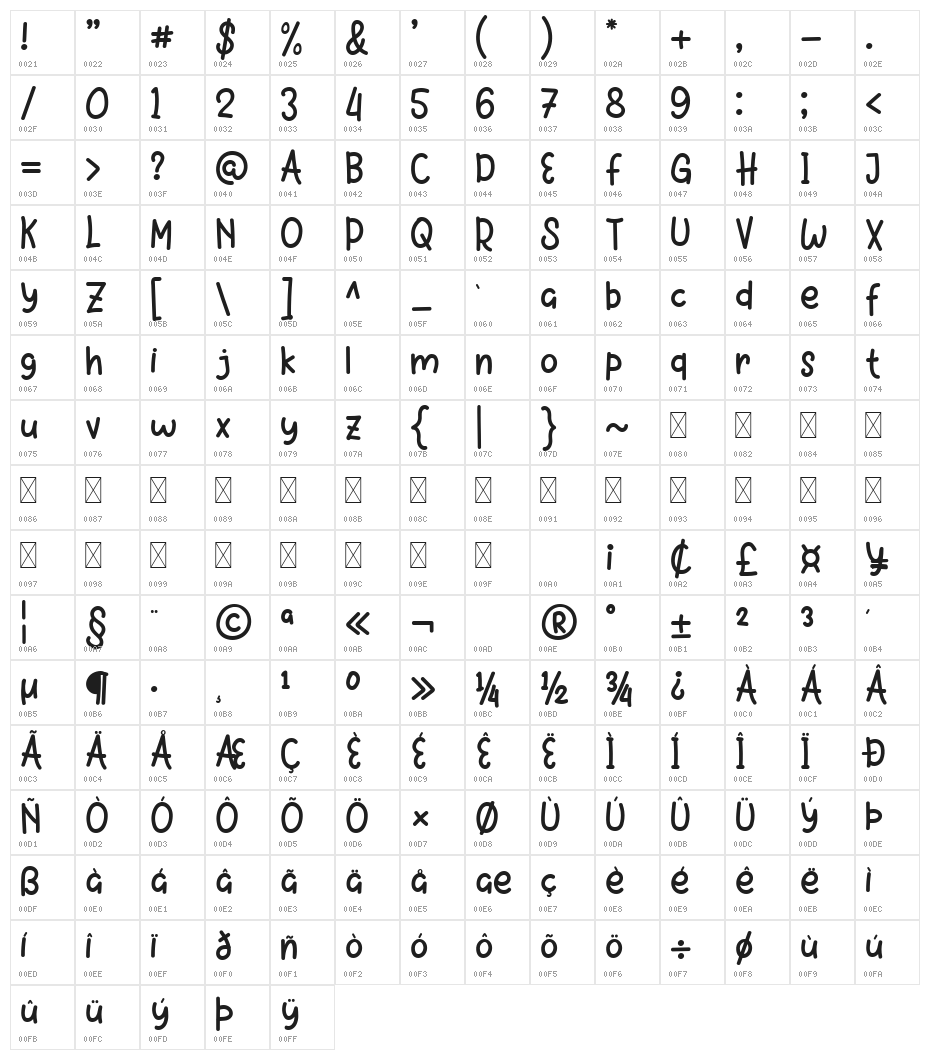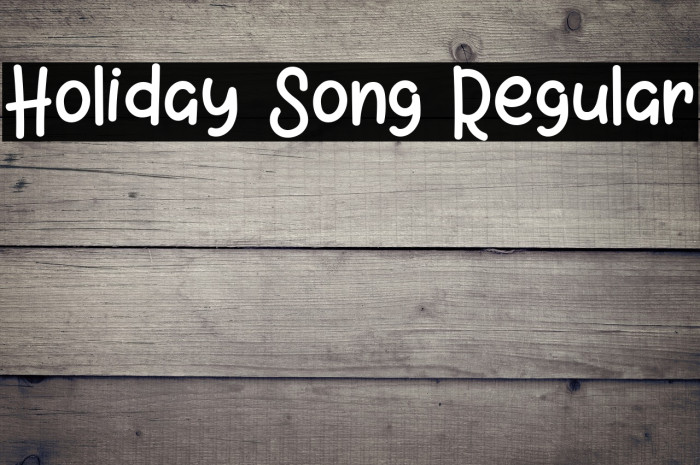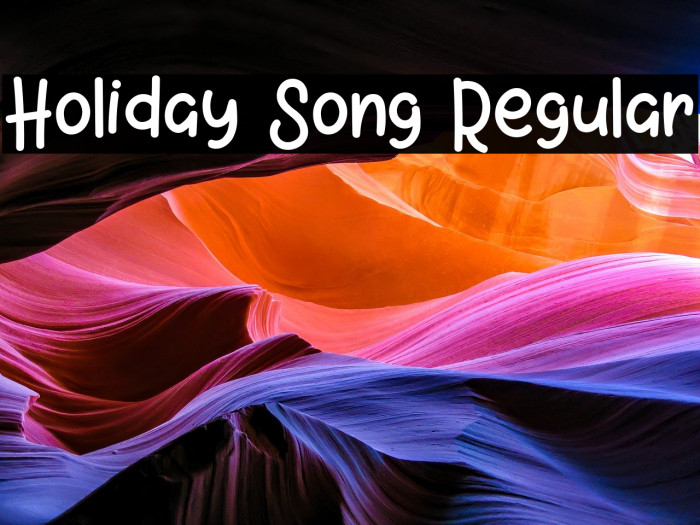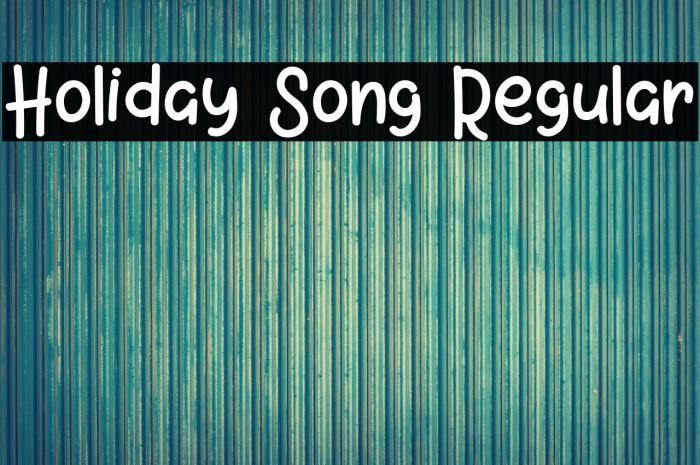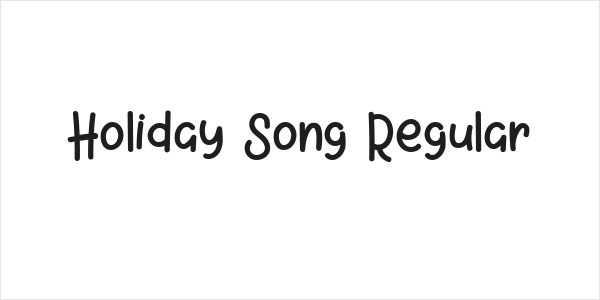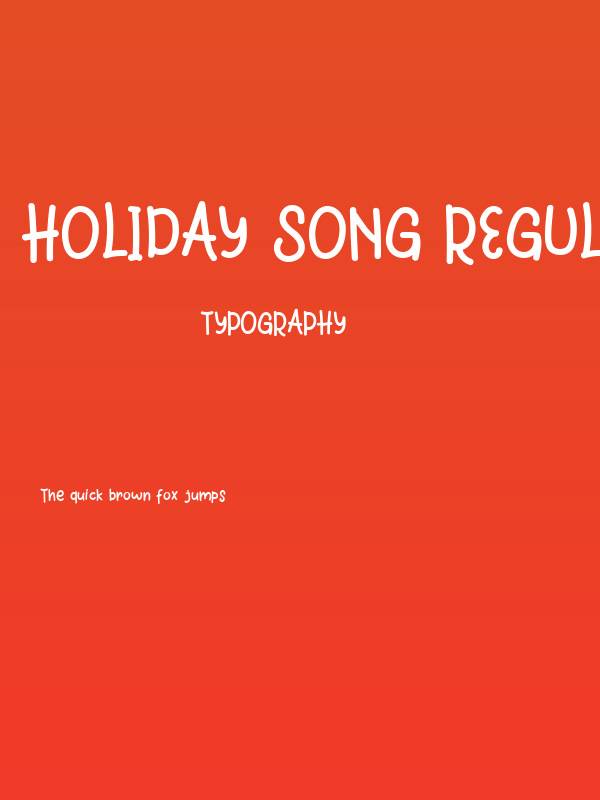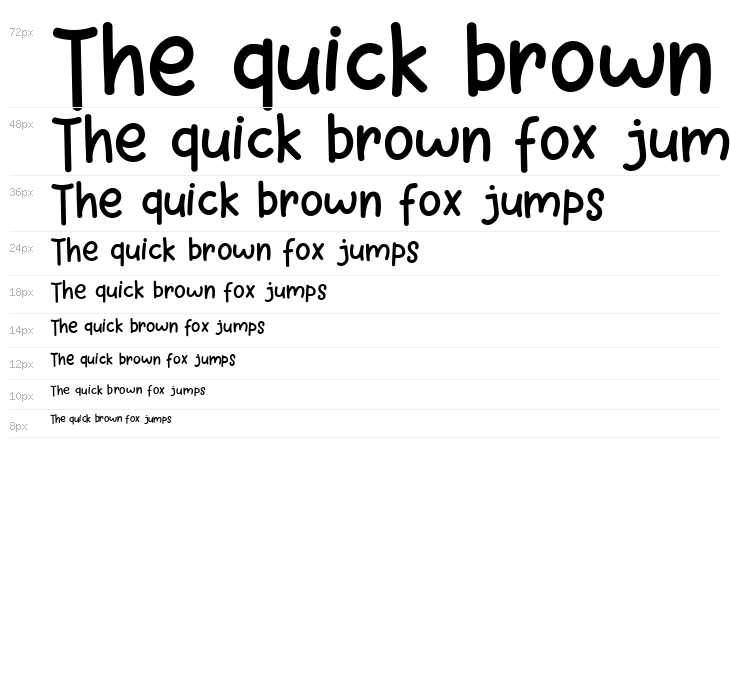
Holiday Song Regular Font
Holiday Song Regular Description
This playful and whimsical font features a handwritten style with rounded edges and a casual, friendly appearance. The characters are slightly irregular, adding to the charm and informal feel. The strokes are consistent in weight, providing a uniform look across all letters and numbers. The font includes a full set of uppercase and lowercase letters, numerals, and a variety of special characters. Its design is approachable and fun, making it suitable for projects that require a personal touch or a relaxed vibe.
Overall StyleCasual, Playful
Use CaseHeadlines, Informal text, Greeting cards
Proposed ProjectsIdeal for greeting cards, children's books, playful branding, and casual invitations.